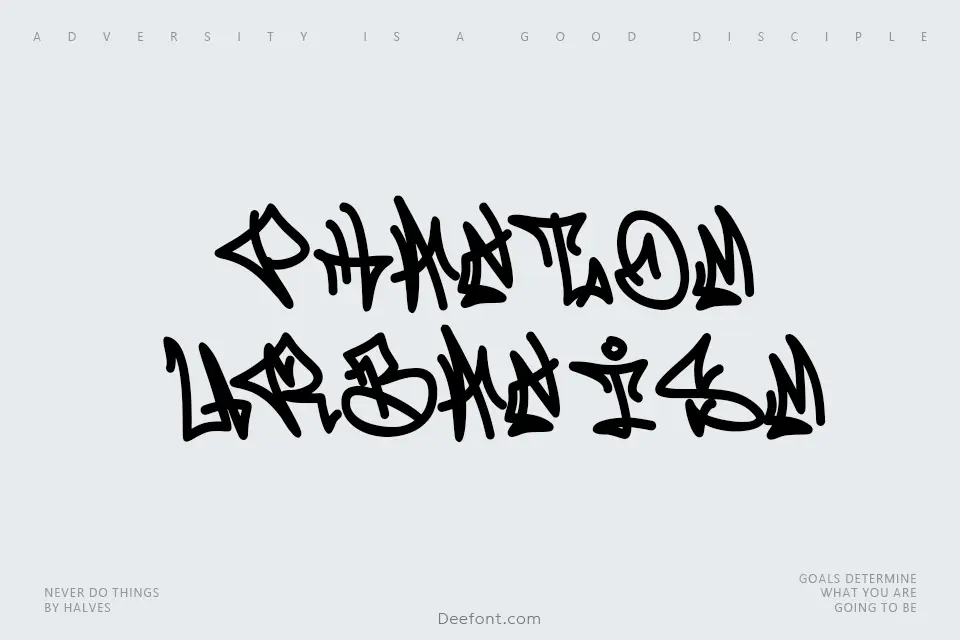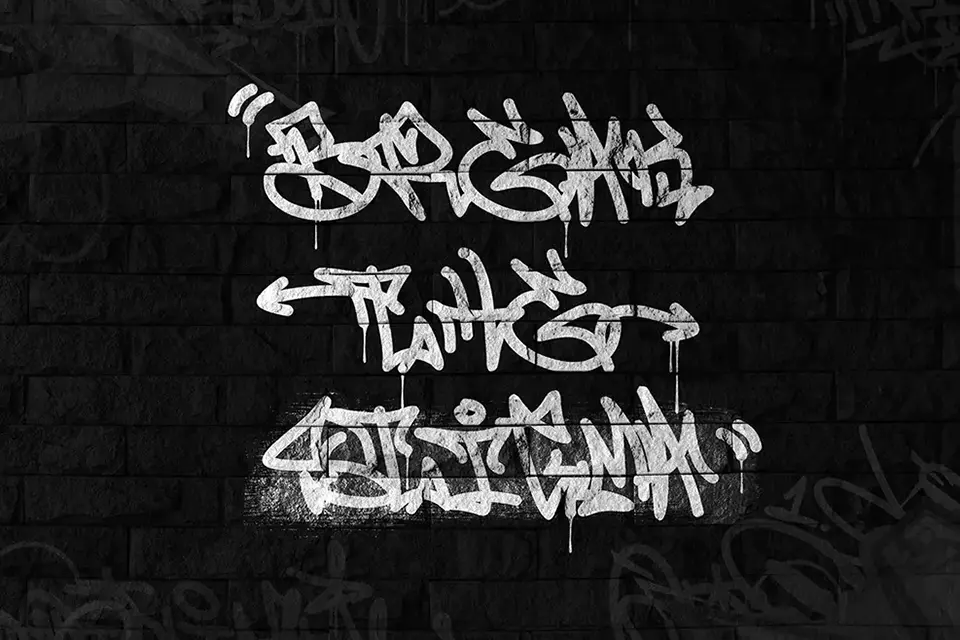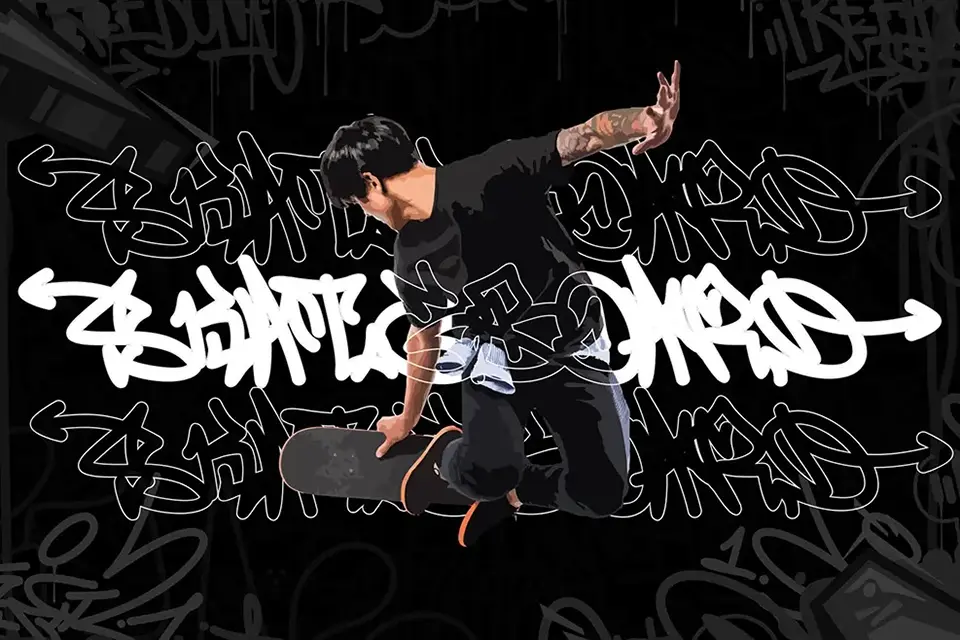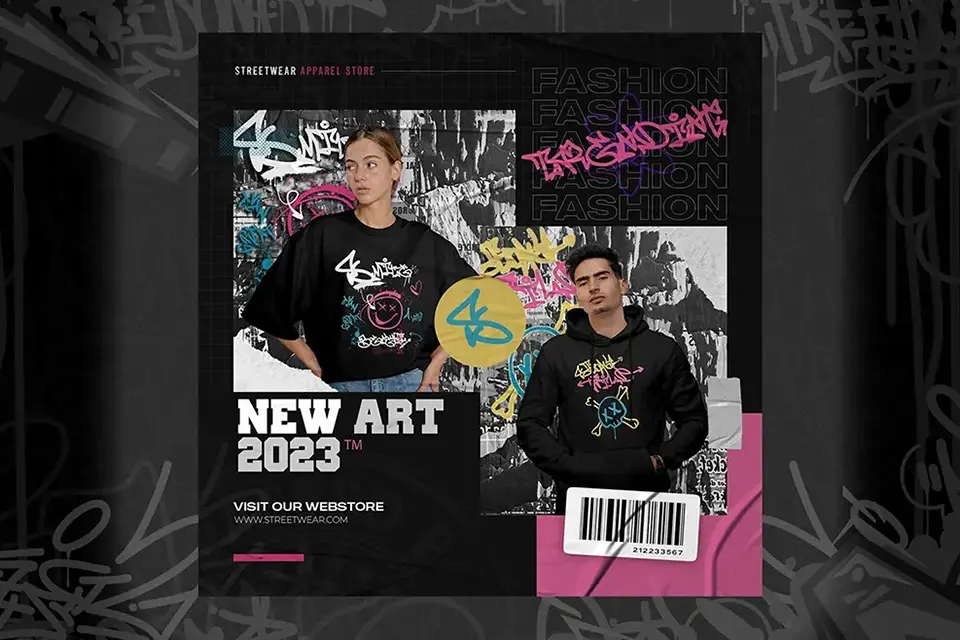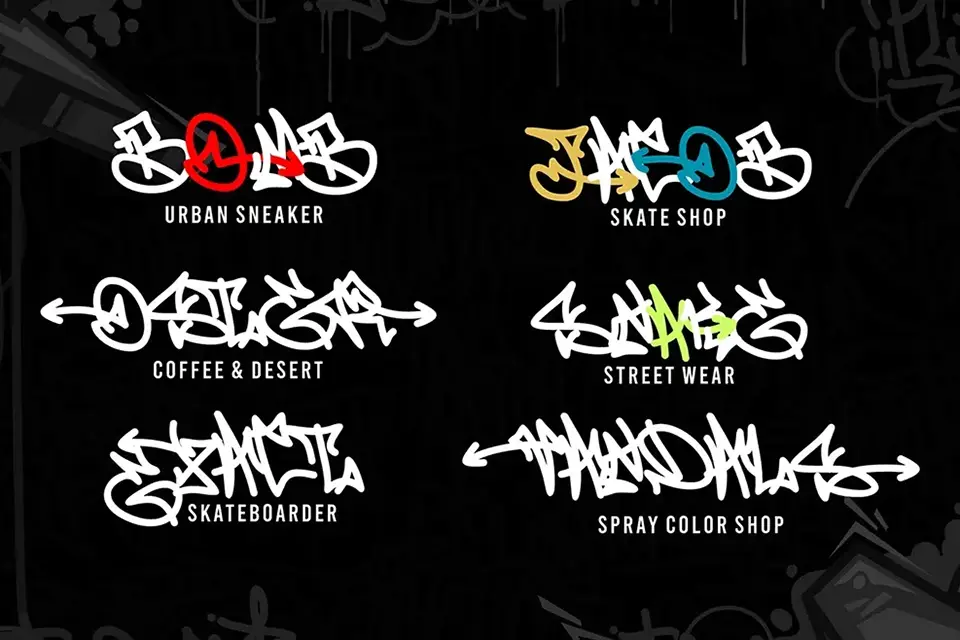
Phantom Urbanism Font
Phantom Urbanism is a bold, graffiti-inspired monoline font that captures the rebellious essence of street culture. With dynamic, interconnected strokes and expressive forms, this edgy typeface brings urban vibes and artistic energy to your designs. Ideal for music album covers, event posters, skateboard logos, fashion brands, video game design, and digital art projects, it delivers strong visual impact for any street-themed or contemporary creative work.